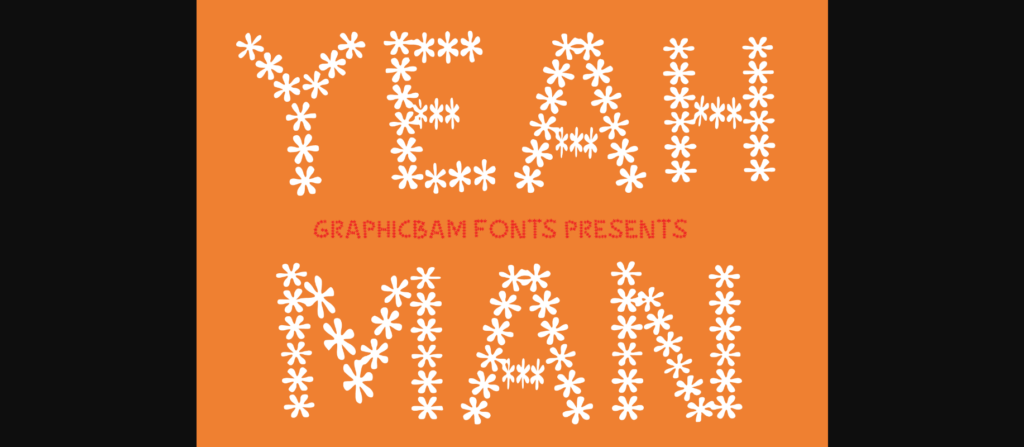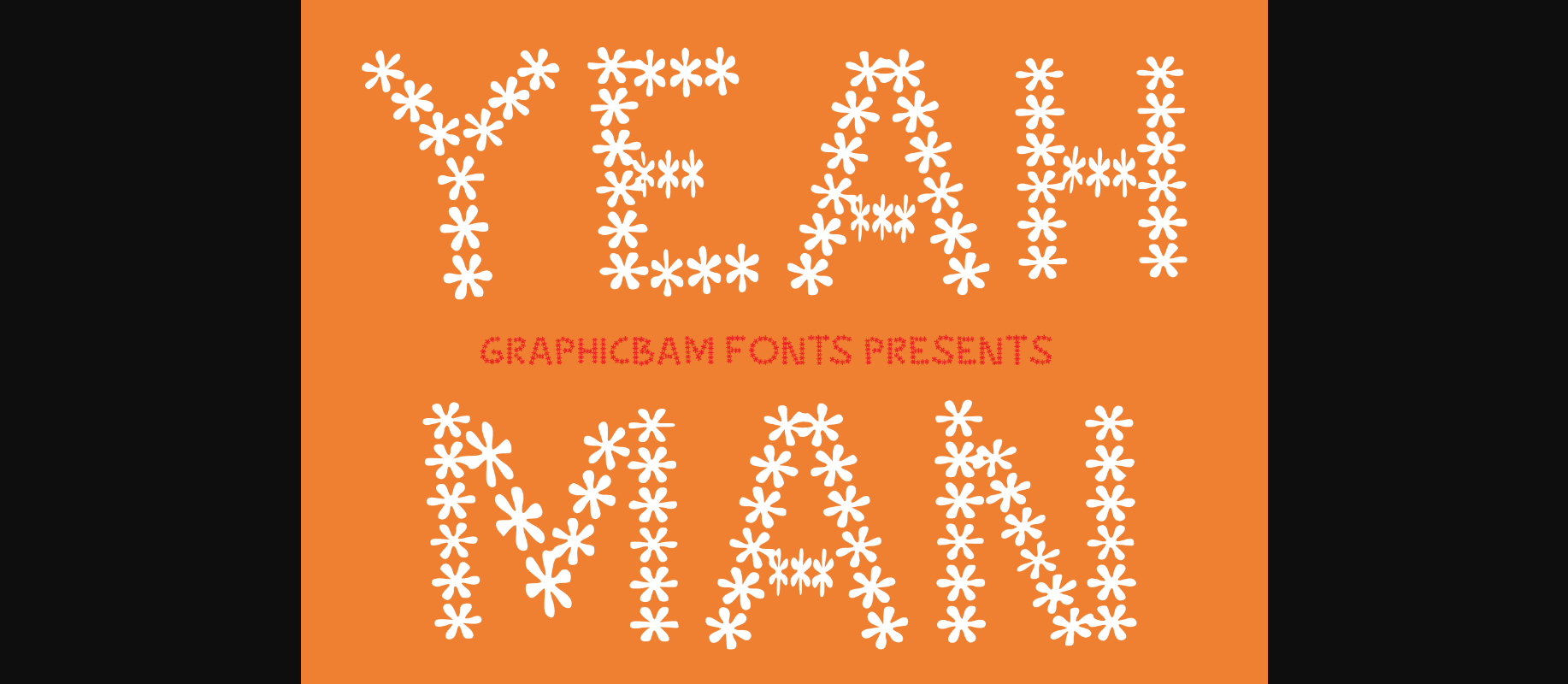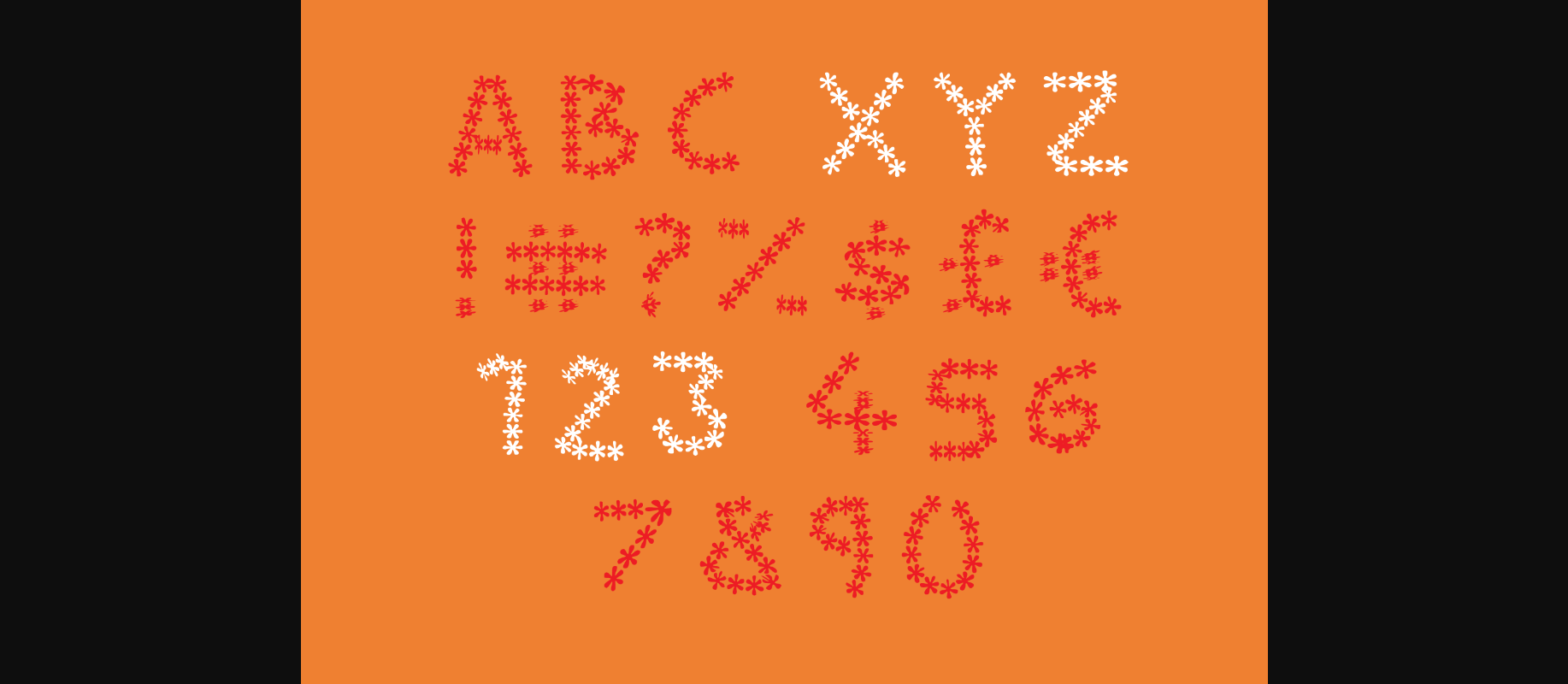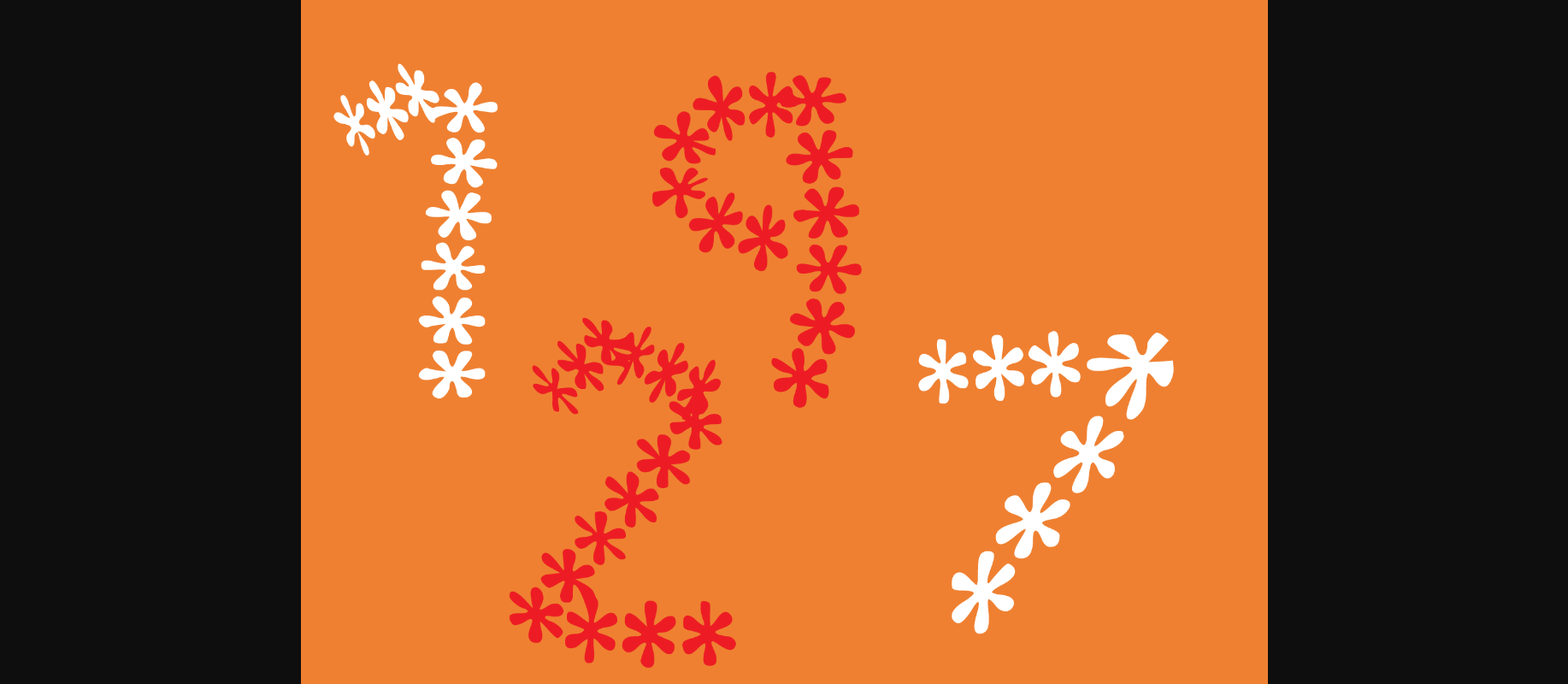
About Yeah Man Font
Yeah Man is a flower powered patterned decorative font. Whether you use it for cartoon related designs, children games or just any creation that requires a lovely touch, this font will be an amazing choice.